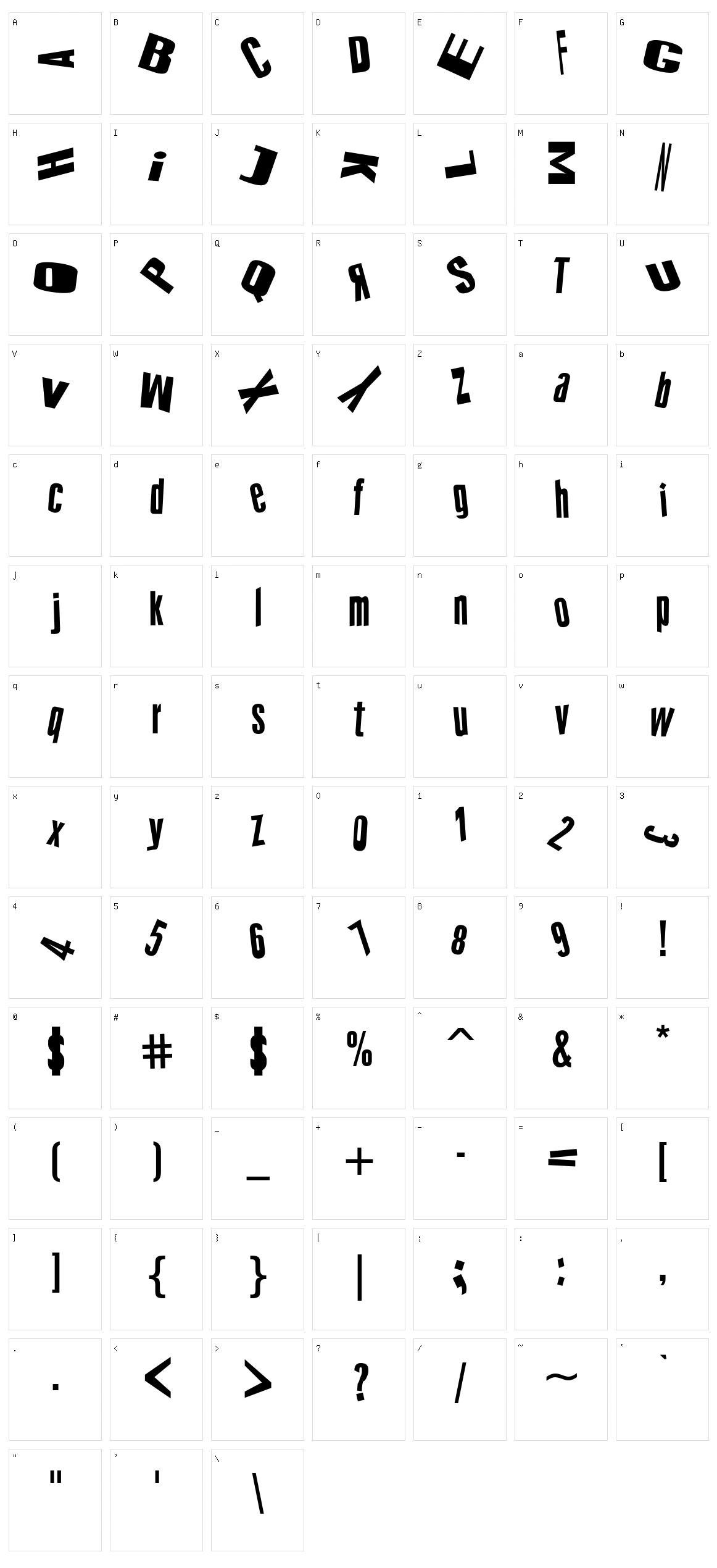
The free font Crazy Style is carefully designed by Galdino Otten Fonts, showcasing a thoughtful balance of creativity and usability and falls under the Distorted font style. When you download the ZIP file, it contains only 27.21 KB of font files, making it lightweight and quick to download. Please review the license details below to understand permitted usage and distribution rights. If license information is not available, we recommend using this font for personal projects only or contacting the author directly for commercial usage permissions.